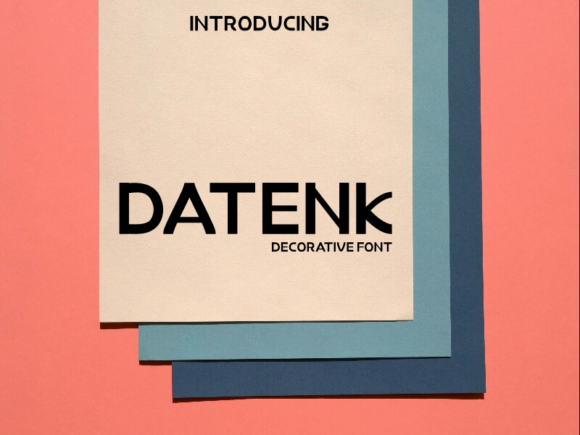
Prepare to be mesmerized by Datenk, a display font that embodies boldness and character. Its thick, imposing letters command attention, making it an ideal choice for captivating posters, flyers, and print designs.
Imagine your artwork adorned with this font, where each word becomes a visual masterpiece. Datenk's unique style adds an artistic flair, transforming your creations into eye-catching masterpieces.
This font is not just a tool; it's an extension of your creativity. With Datenk, your designs will transcend the ordinary, leaving an unforgettable impact on your audience.
So why settle for ordinary when you can have extraordinary? Download Datenk today and unleash the limitless possibilities of your artistic expression. Let your designs speak volumes, capturing hearts and captivating minds.